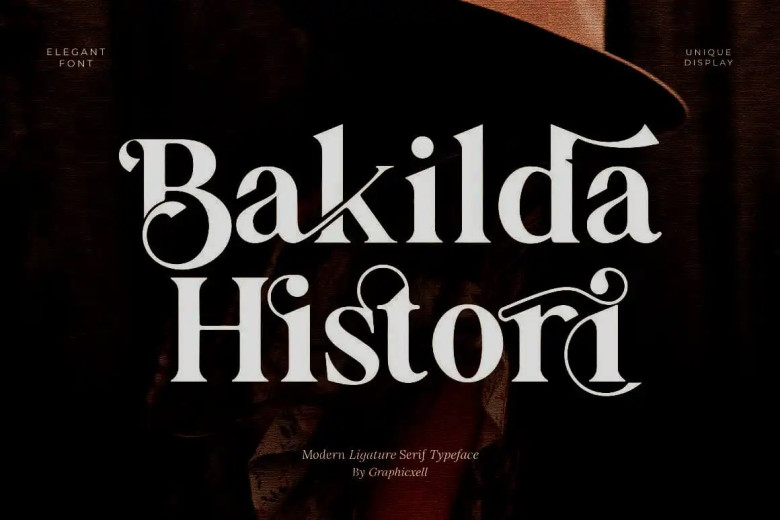
Bakilda Histori Font
Bakilda Histori Serif is an eye-catching font inspired by the iconic minim logo that can be used for designing templates, brochures and videos, advertising branding logos, invitations, layout design, elegant crafts, beauty design and more.
Bakilda Histori Serif Font